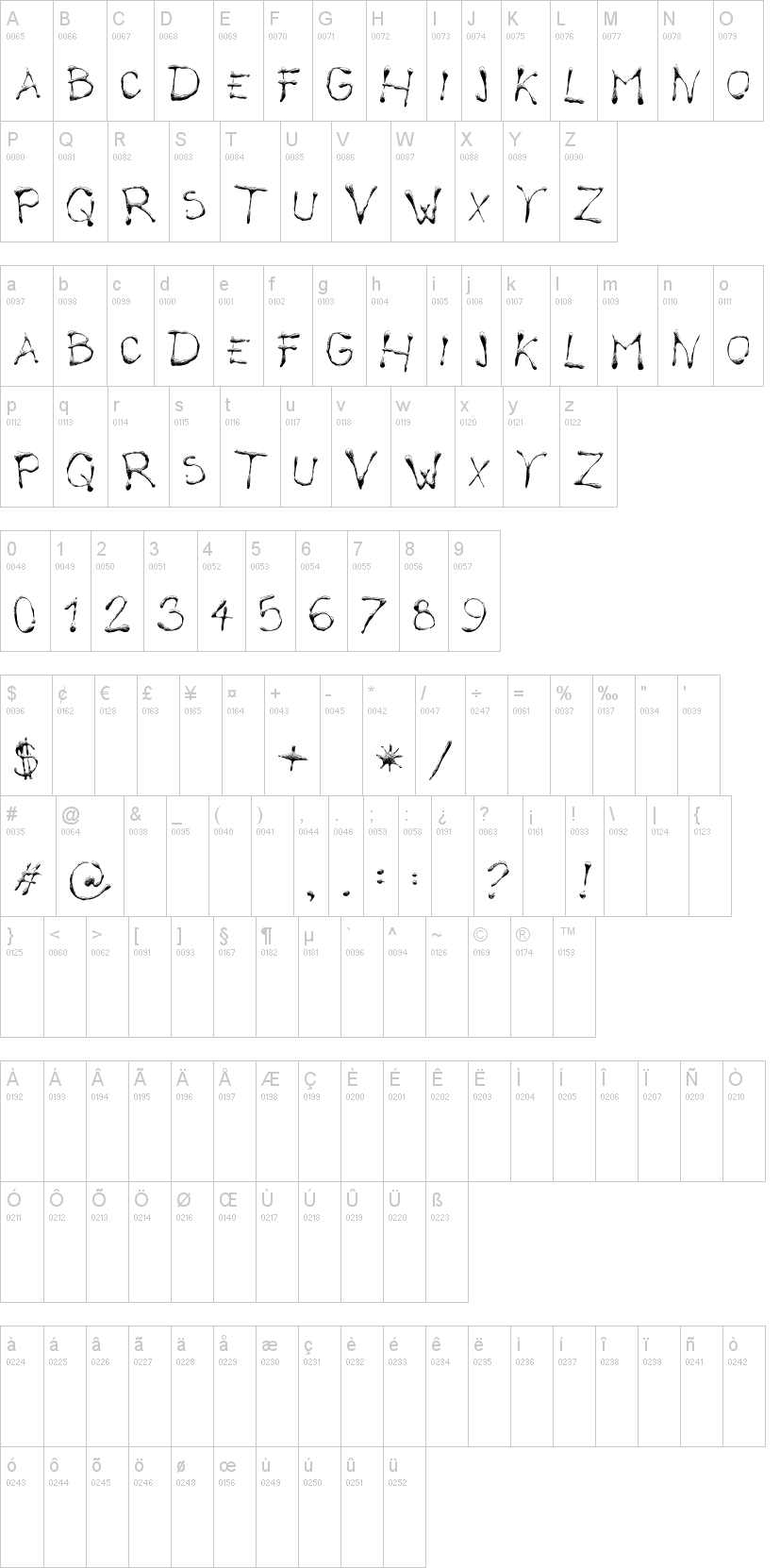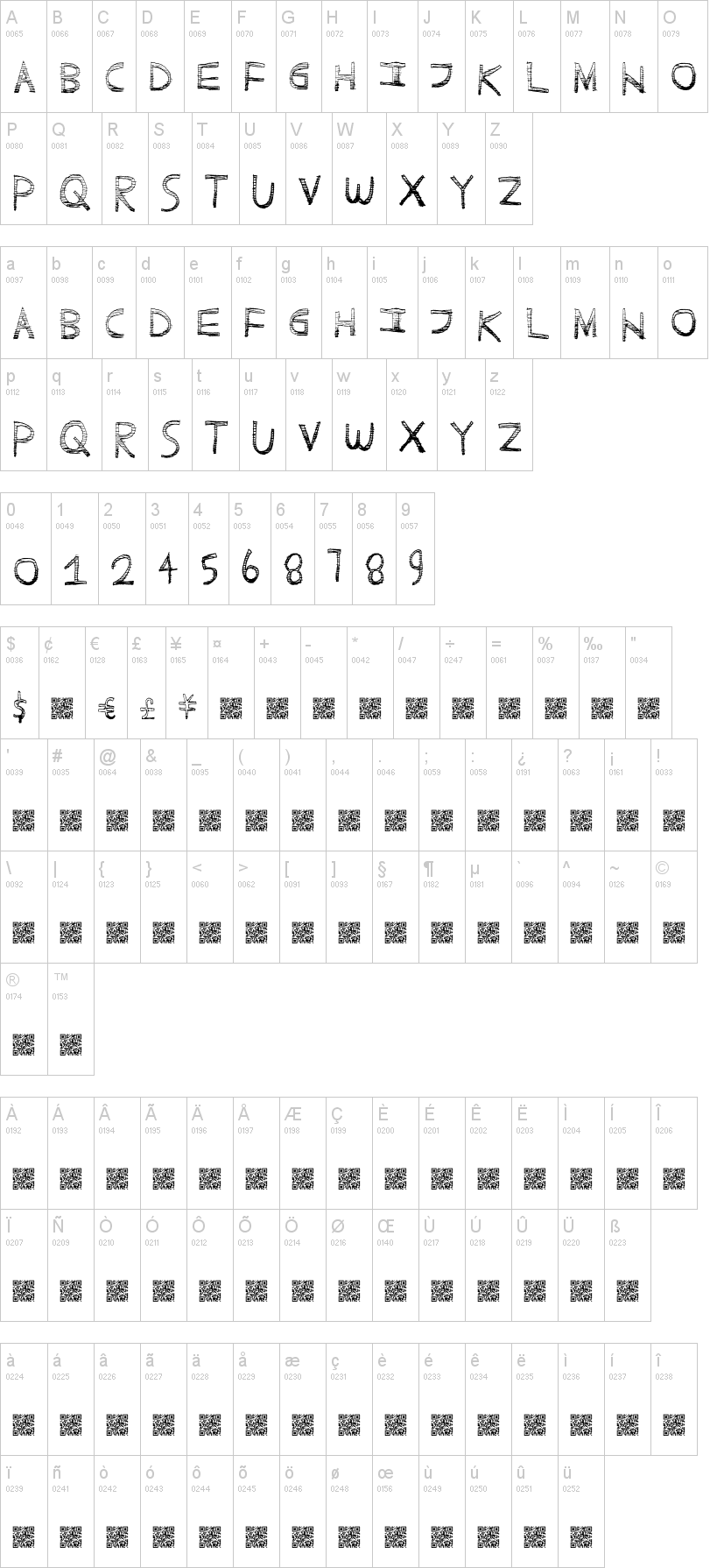
List Of Fun Fonts Dafont Ideas
List Of Fun Fonts Dafont Ideas. What the fun font created by weknow font foundry. Dec 8, 2022 by dafont leave a comment.
Many fun font | dafont.com ad by xerographer fonts many fun custom preview size many fun by xerographer fonts in fancy > destroy 26,465 downloads (0 yesterday) 1. What the fun font created by weknow font foundry. Fun blob font is for those who are bloggers and like to have variety in texts.
See more ideas about cool fonts, lettering fonts, cricut fonts. Add swirls to the mix and you have a powerful typeface indeed. With the tagline “just do it.” it is an american multinational company that works in.
Introducing The New Billie Eilish Modern Ligature Serif Is A Modern, Elegant And Classy Serif Typeface, Best Used As A Display For.
Stars and types is a handlettered font perfect for crafters and more! The font is perfect for adding more personality to your project. Every font is free to download!
What the fun font created by weknow font foundry. Fun blob font is for those who are bloggers and like to have variety in texts. Many fun font | dafont.com ad by xerographer fonts many fun custom preview size many fun by xerographer fonts in fancy > destroy 26,465 downloads (0 yesterday) 1.
Here Are 15 Of Our Handpicked Free Fonts For December Drip October By Creativetacos Personal Use Free Matcha By Aestherica Studio Personal Use Free Crotah By Alit Design Personal Use.